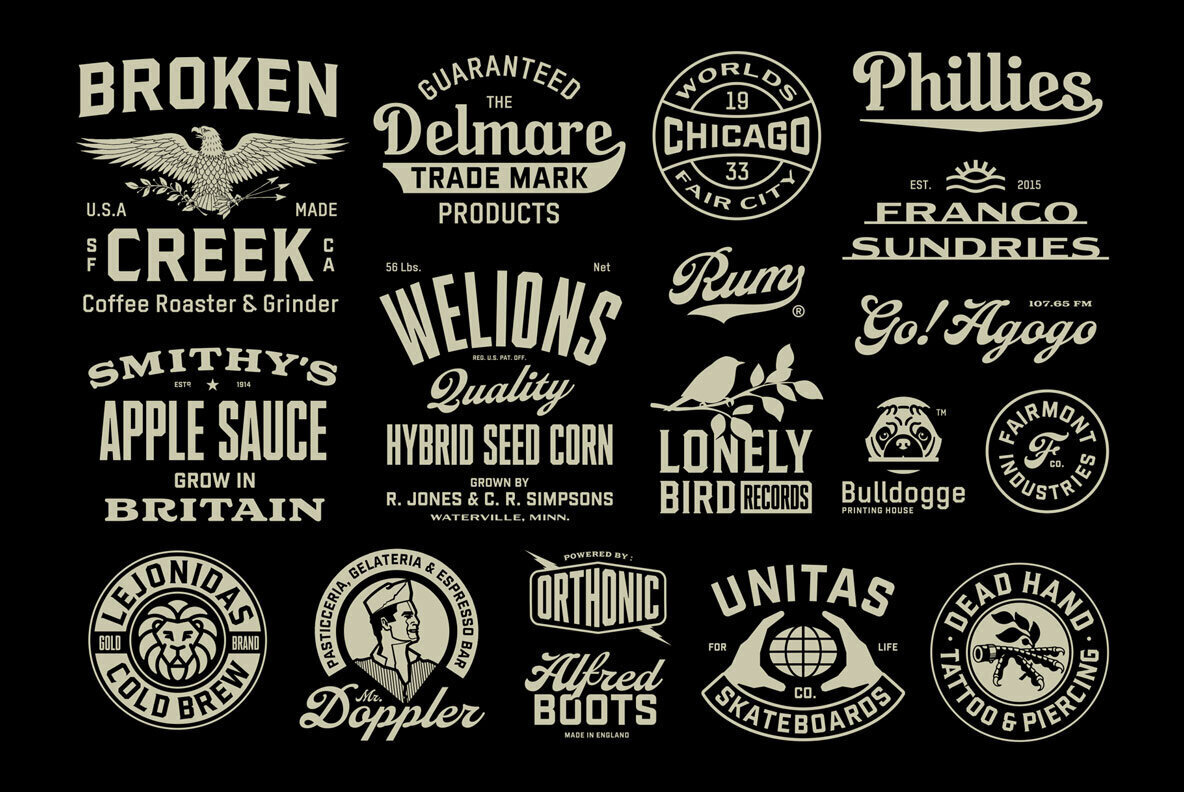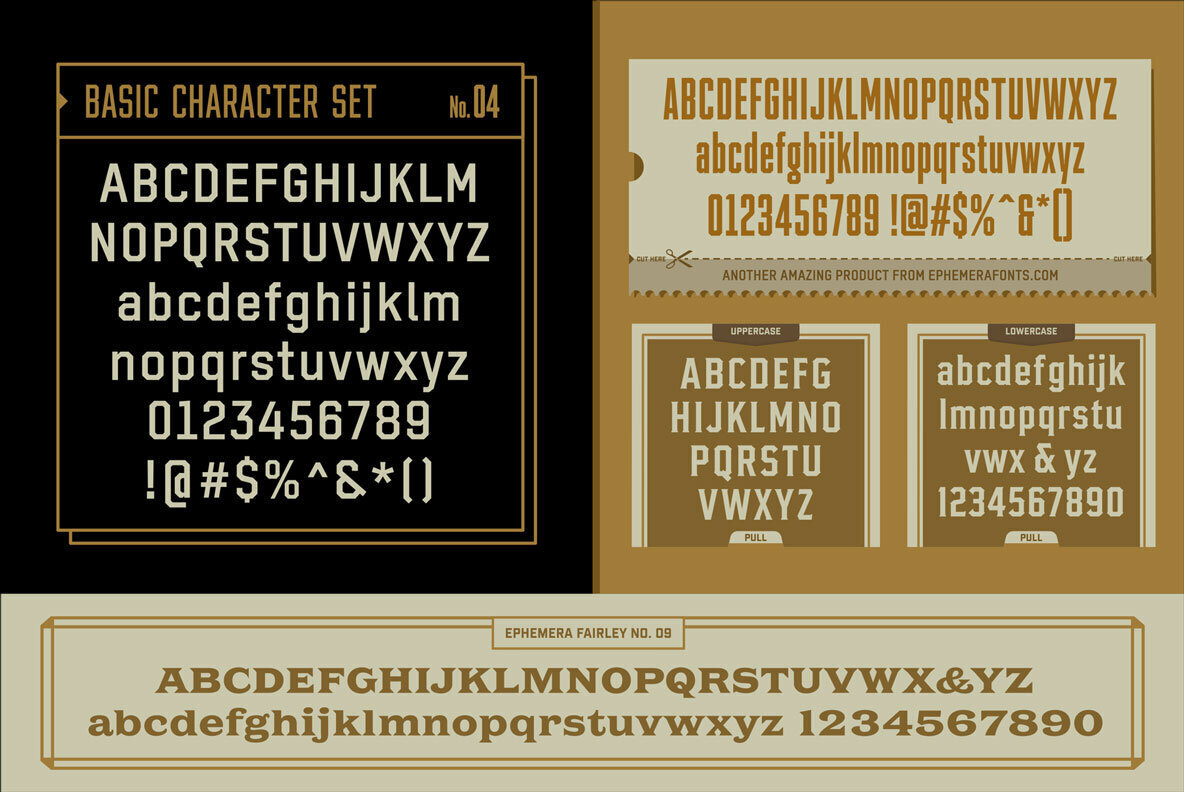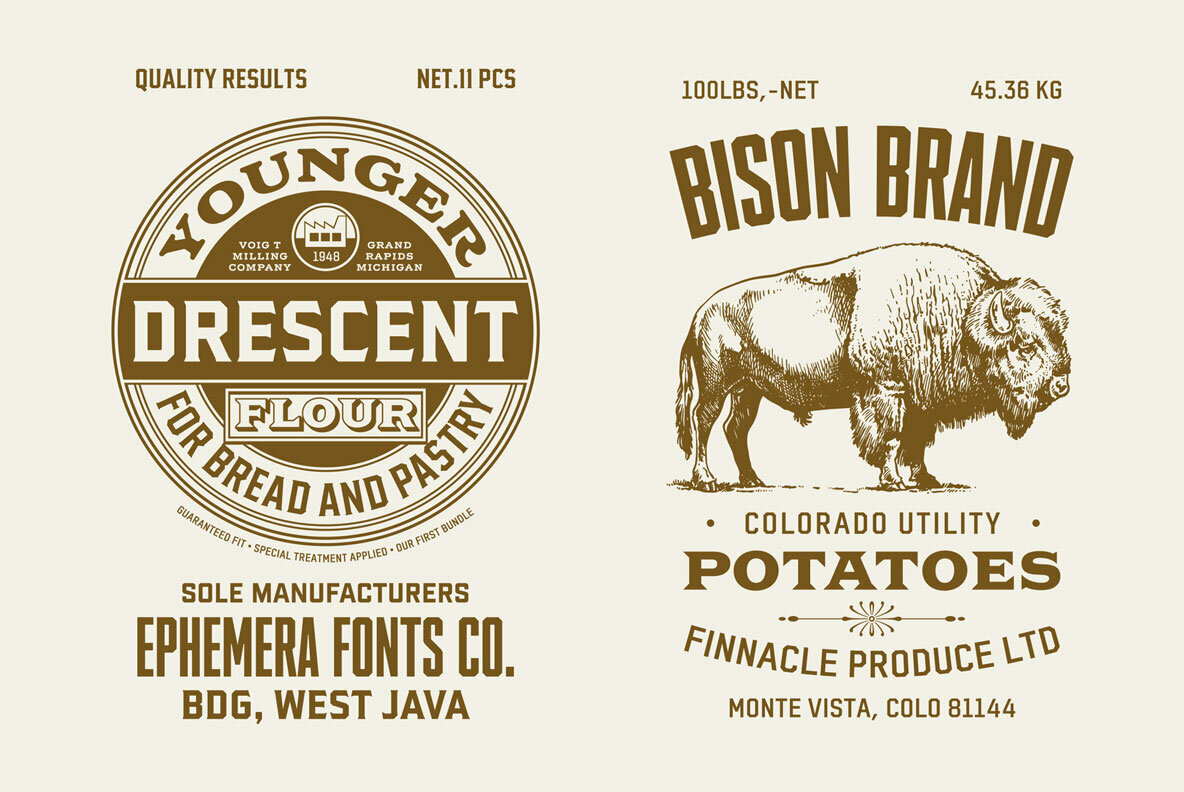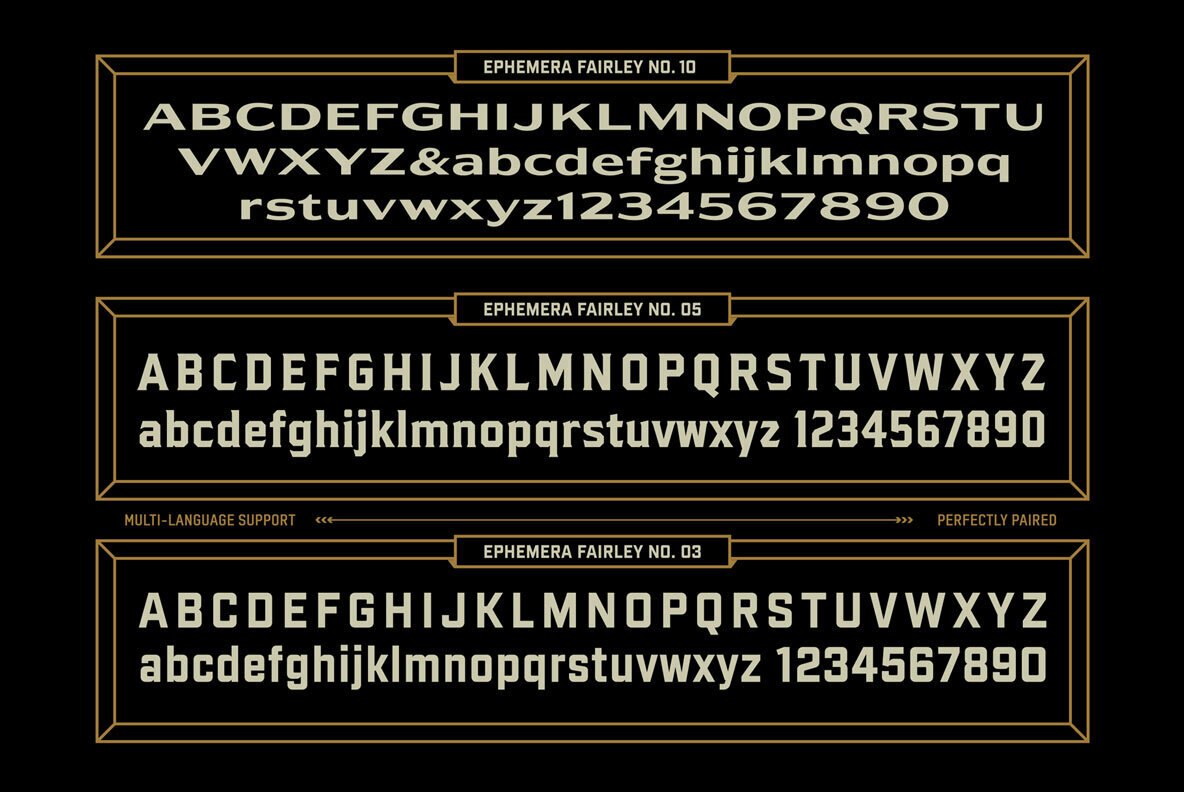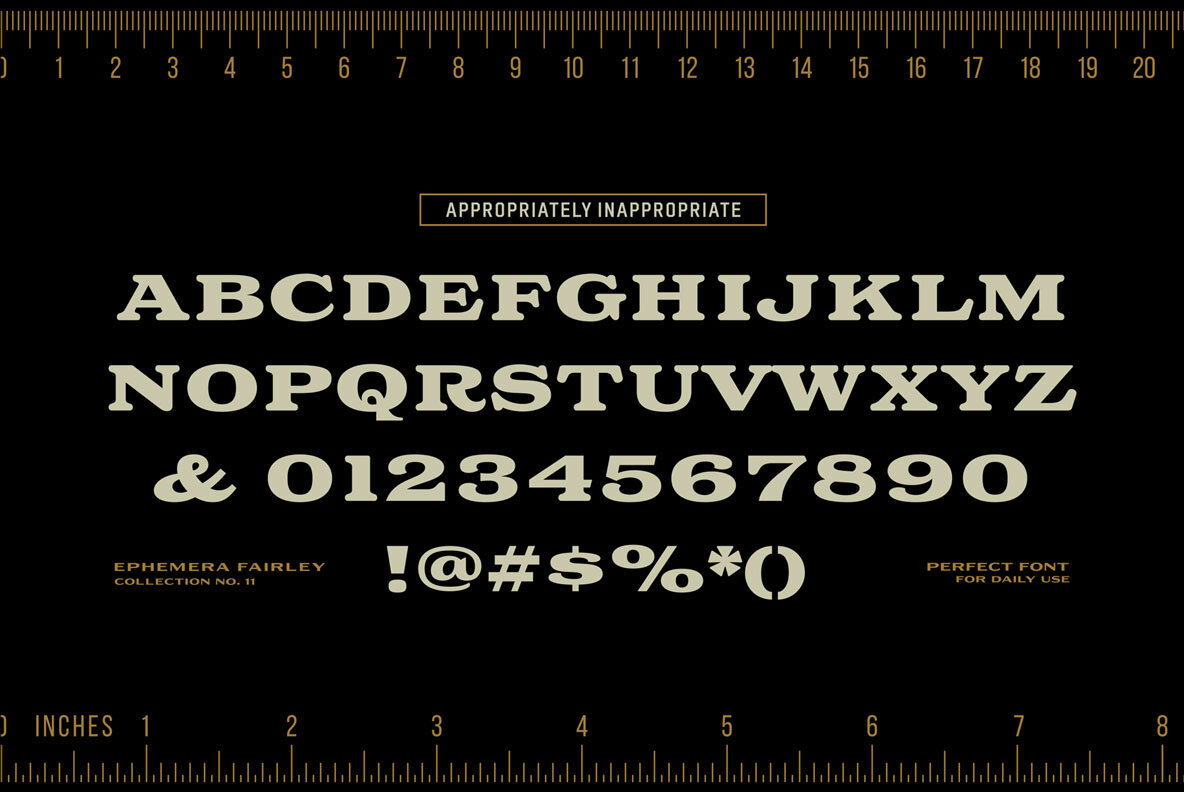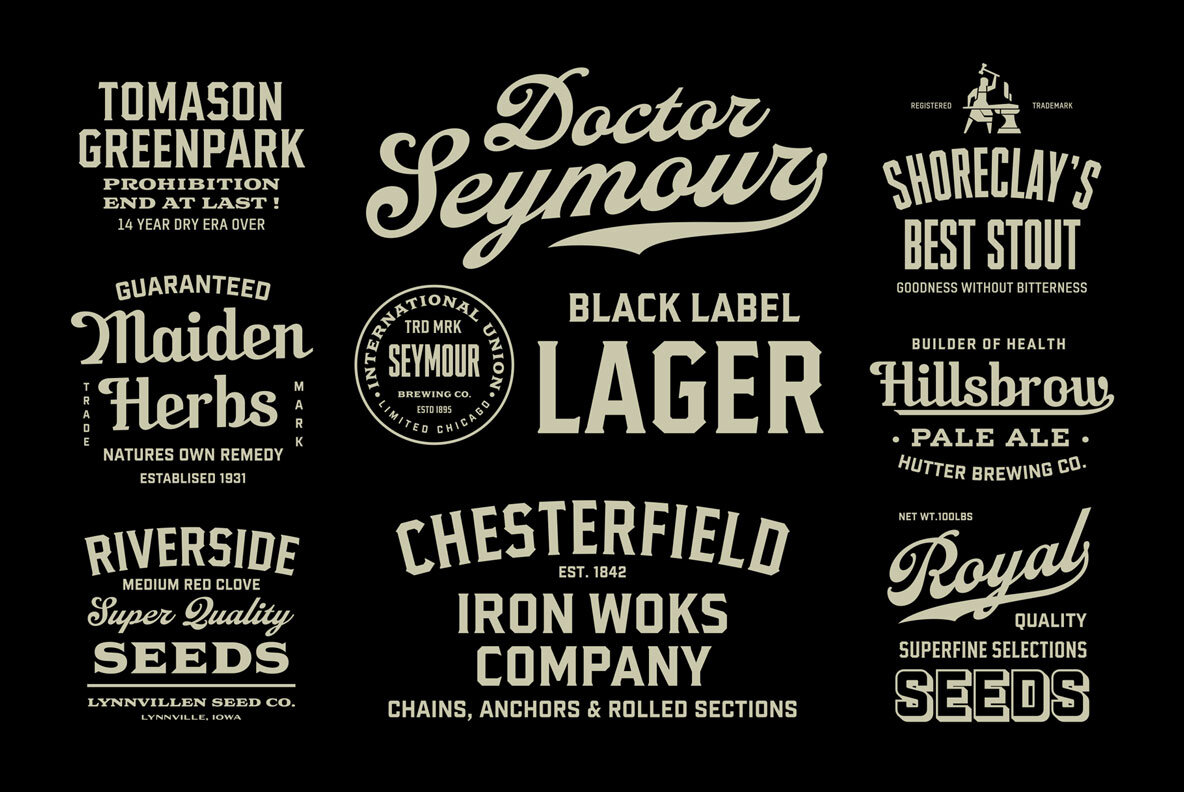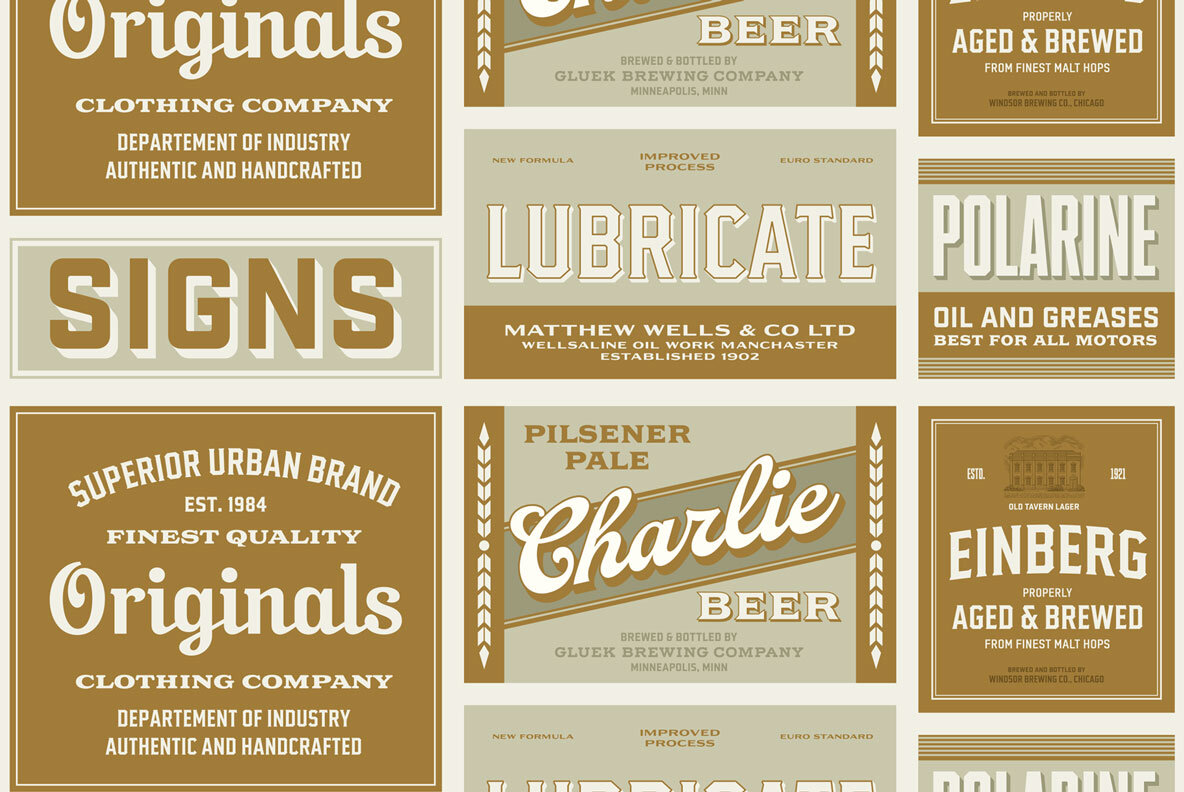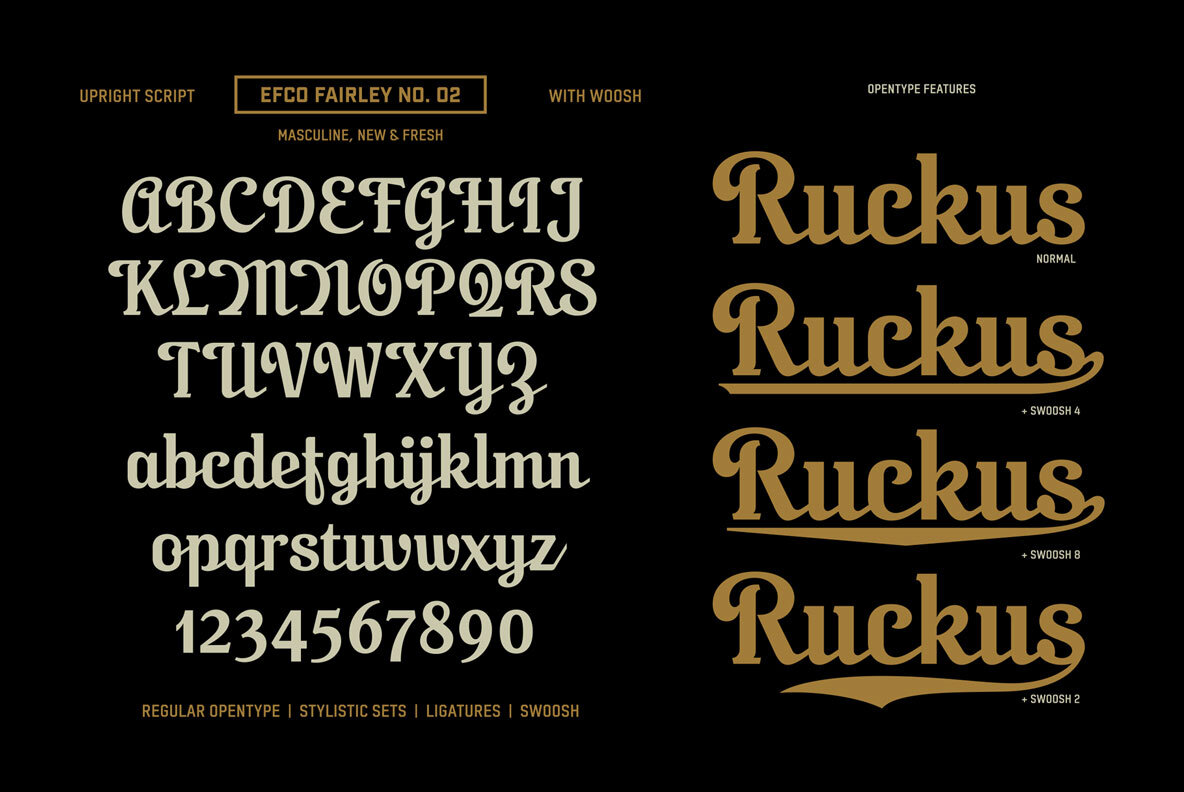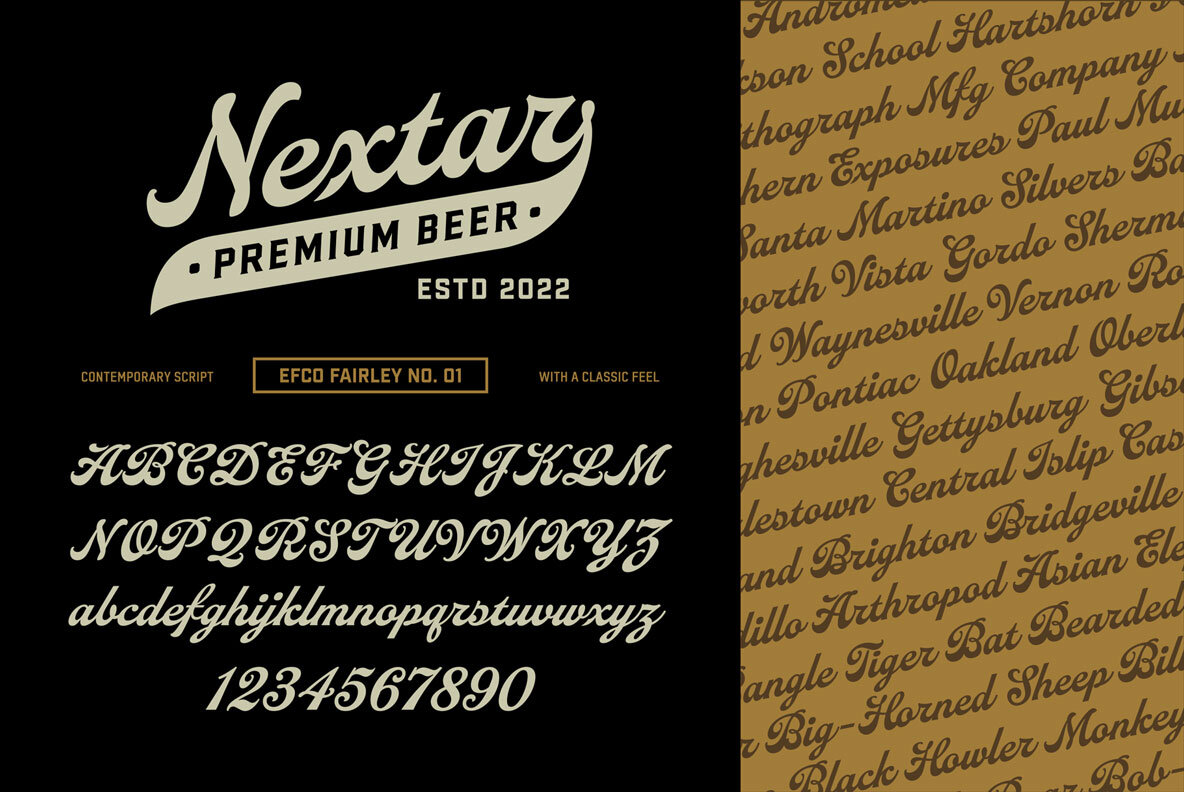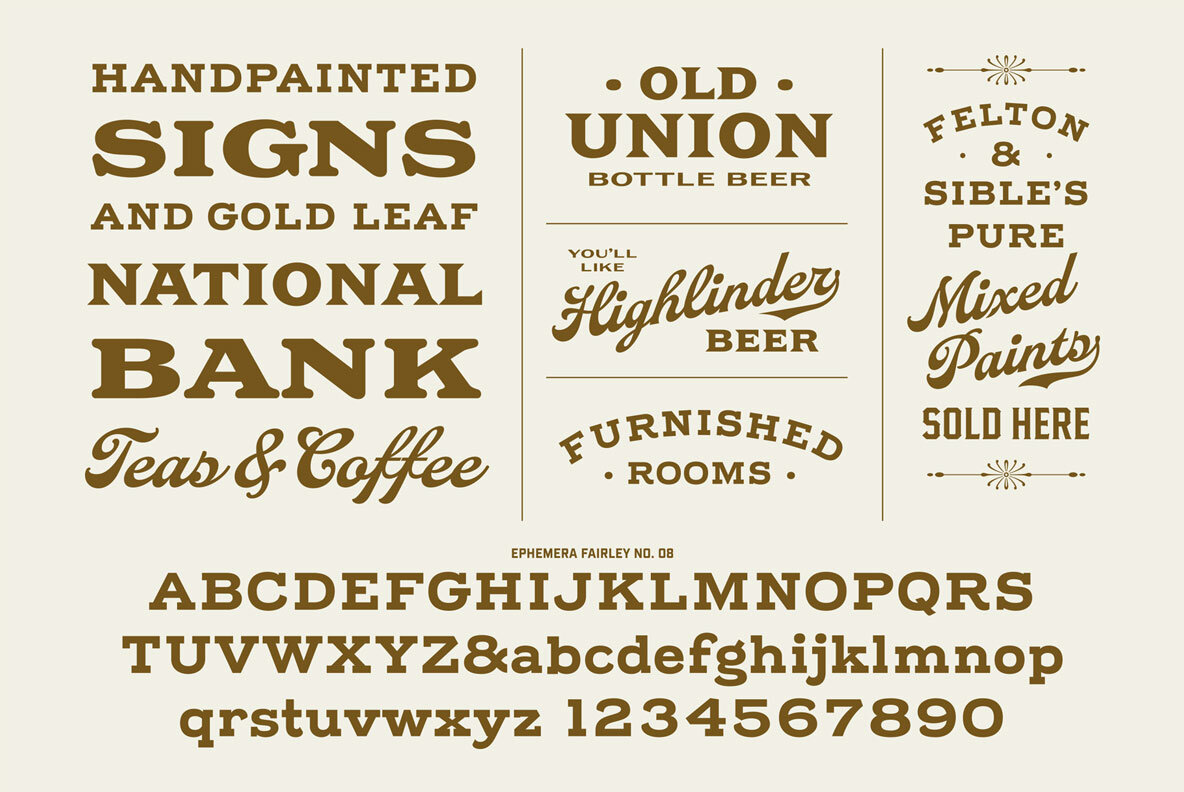
EFCO Fairley Font
EFCO Fairley Font Collection includes 11 fonts that have different styles in sans, serif and script, which are all works great together or in their own. The script version also combined with ending swashes, use stylistic alternates from 0 to 9 to work with them. The Inspiration for this collection comes from today's graphic design trends. EFCO Fairley Font Collection was designed carefully to create dozens of font combinations and get really unique typographic for your project. It would be a perfect choice for posters, logos, t-shirt and magazine prints, eye-pleasing typographic designs and more.